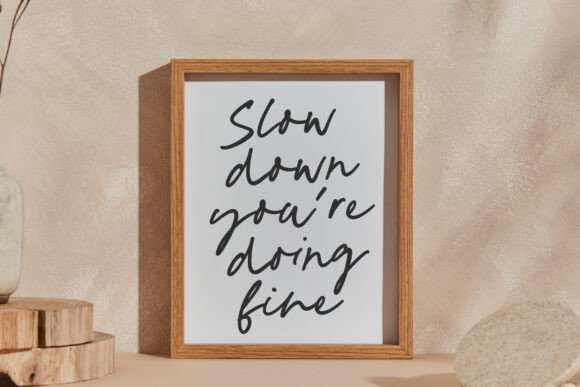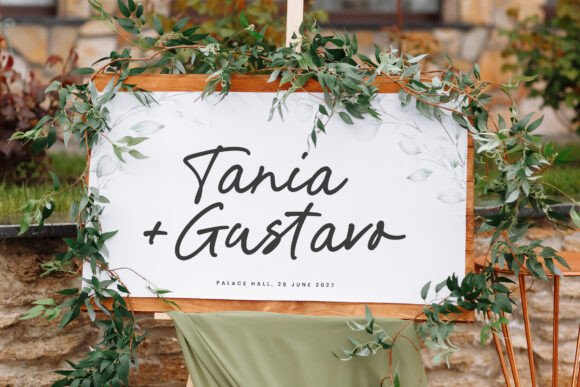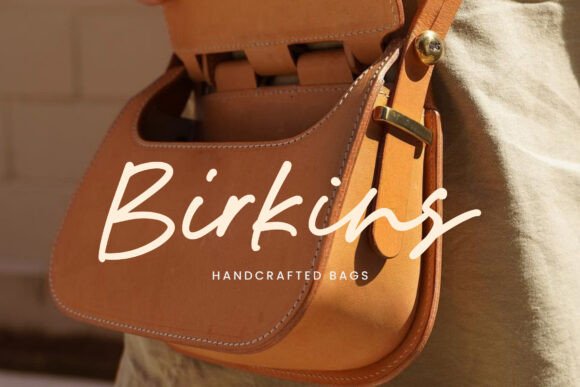
Introduction to Indie Signature Font
Indie Signature is a stylish handwritten script font that mimics the natural flow and character of handwriting.
It features fluid strokes, elegant curves, and a casual yet refined aesthetic, making it ideal for projects like branding, logos, invitations, or any design that seeks a personal, authentic touch The font exudes individuality and creativity while maintaining readability and charm.
Key Features of Indie Signature Font
Why Choose Indie Signature Font?
Indie Signature Font offers exceptional quality and versatility, making it a valuable addition to your design toolkit. Whether you’re creating for personal projects or commercial use, Indie Signature Font delivers professional results.